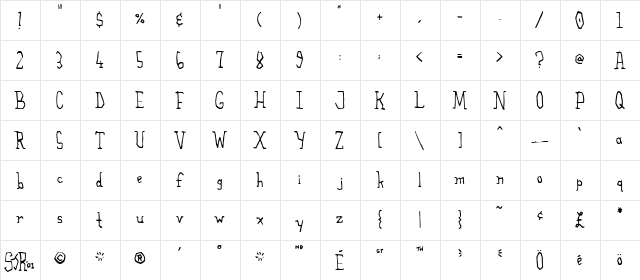
The Alchemist Regular
| Designer | S. John Ross |
Design Context for The Alchemist Typeface
The Alchemist is a composed and adaptable typeface that performs quietly and consistently across a wide range of design contexts.